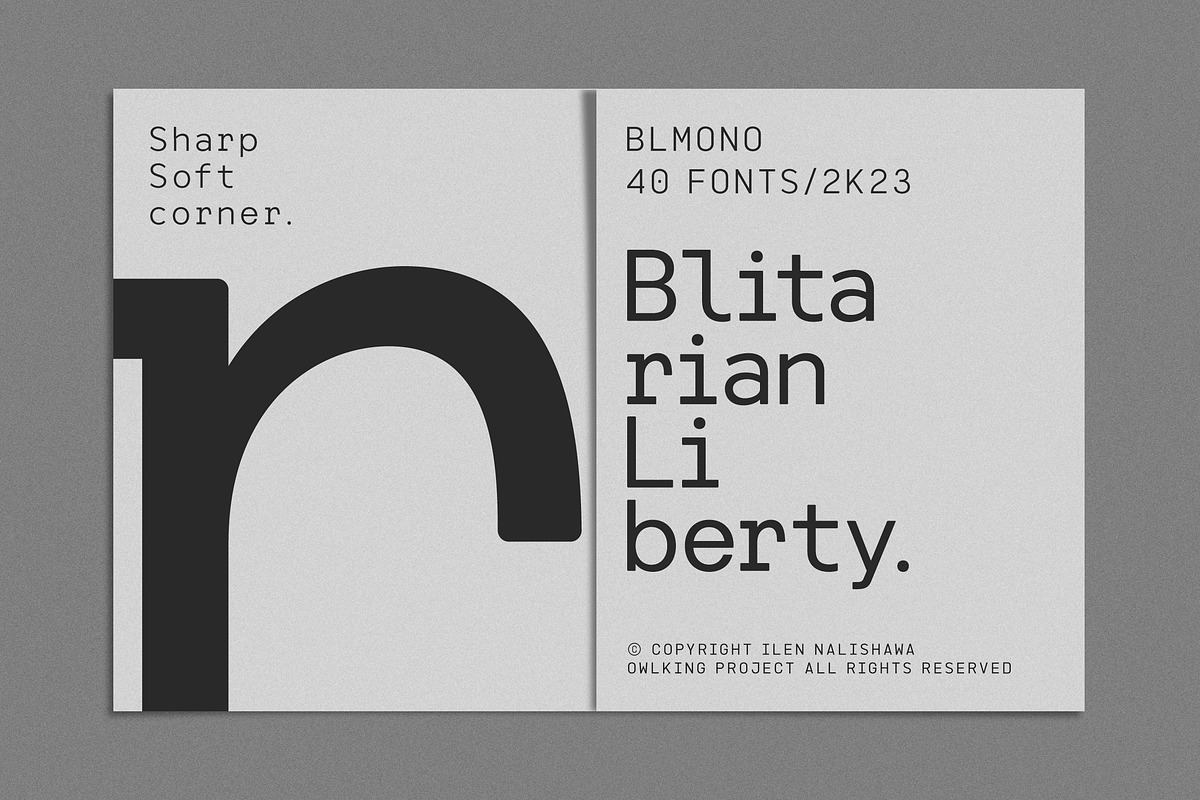
Blitarian Liberty Font Free Download is a bold, expressive display typeface that channels strength, independence, and a touch of retro Americana. With its sturdy letterforms, sharp angles, and impactful presence, this font is perfect for posters, political-themed graphics, patriotic merchandise, strong branding, and editorial headlines. It’s built to stand out and make a statement.
Blitarian Liberty combines a vintage feel with a modern edge, making it versatile for both nostalgic and contemporary design projects. Whether you’re designing print materials or digital content, this font adds a sense of purpose and boldness.